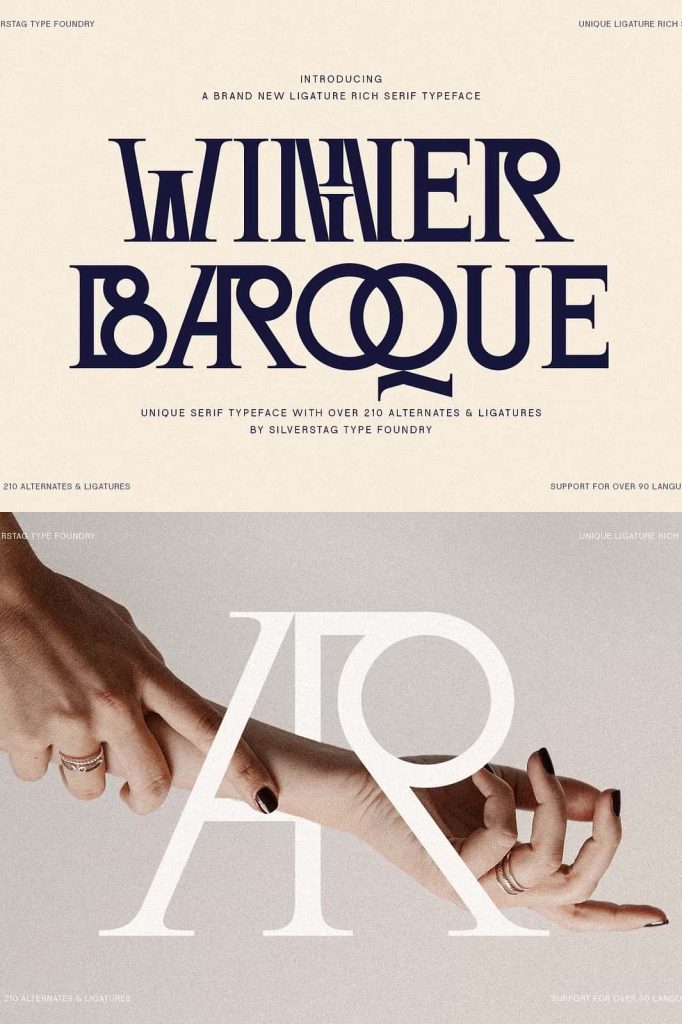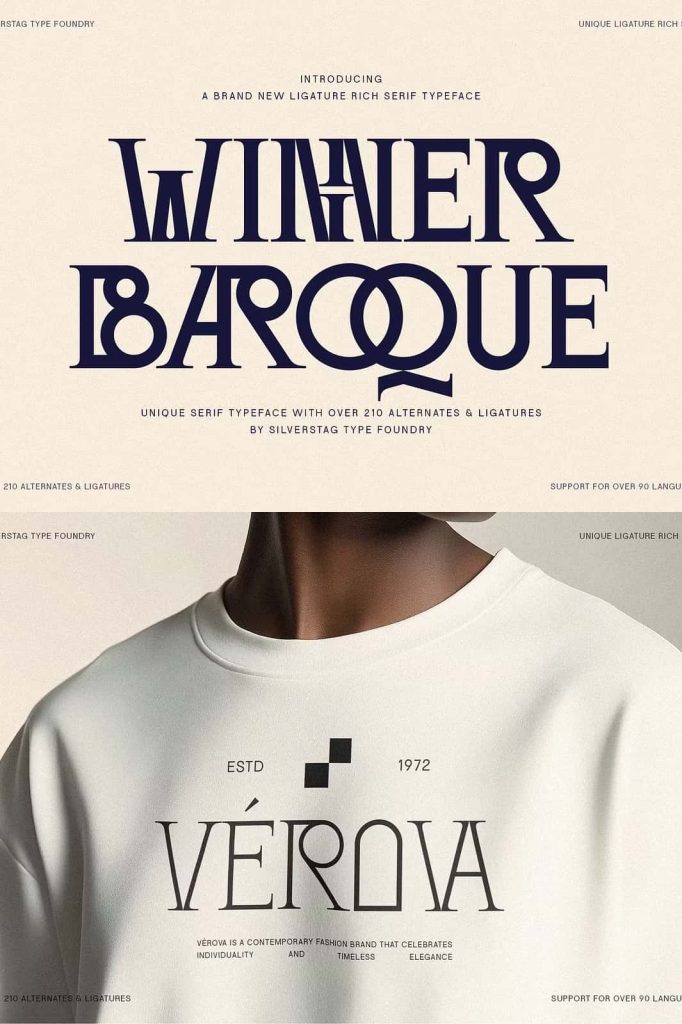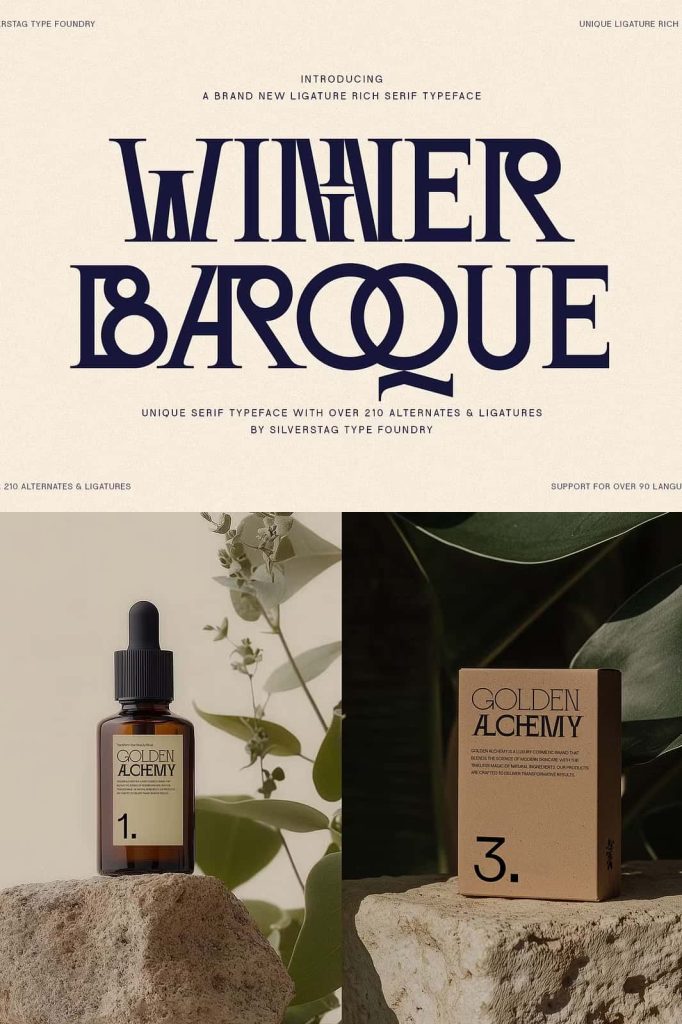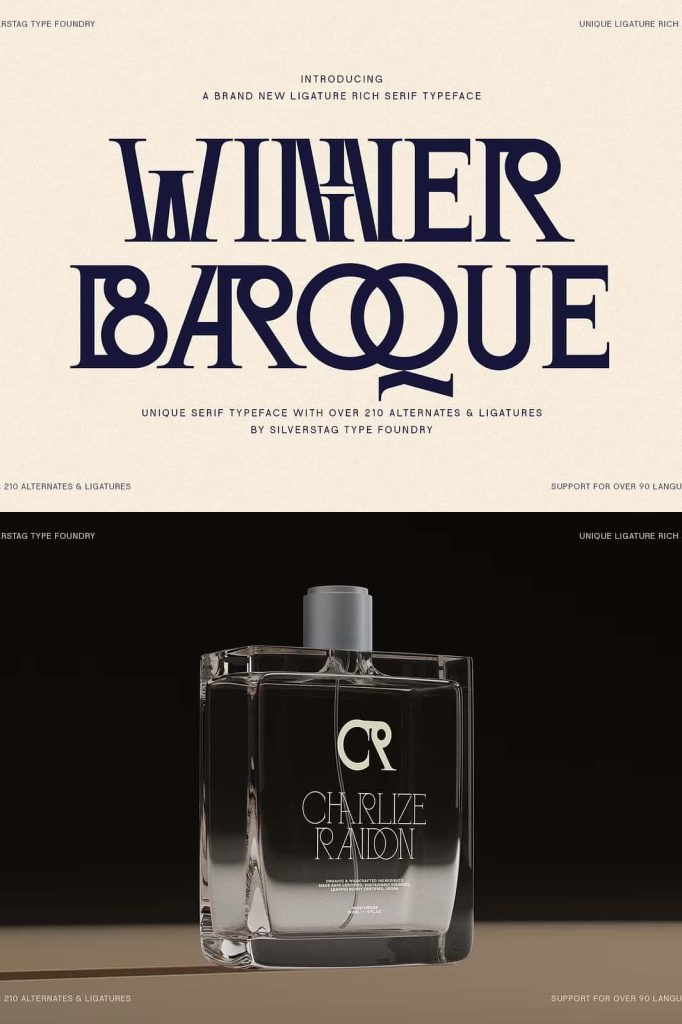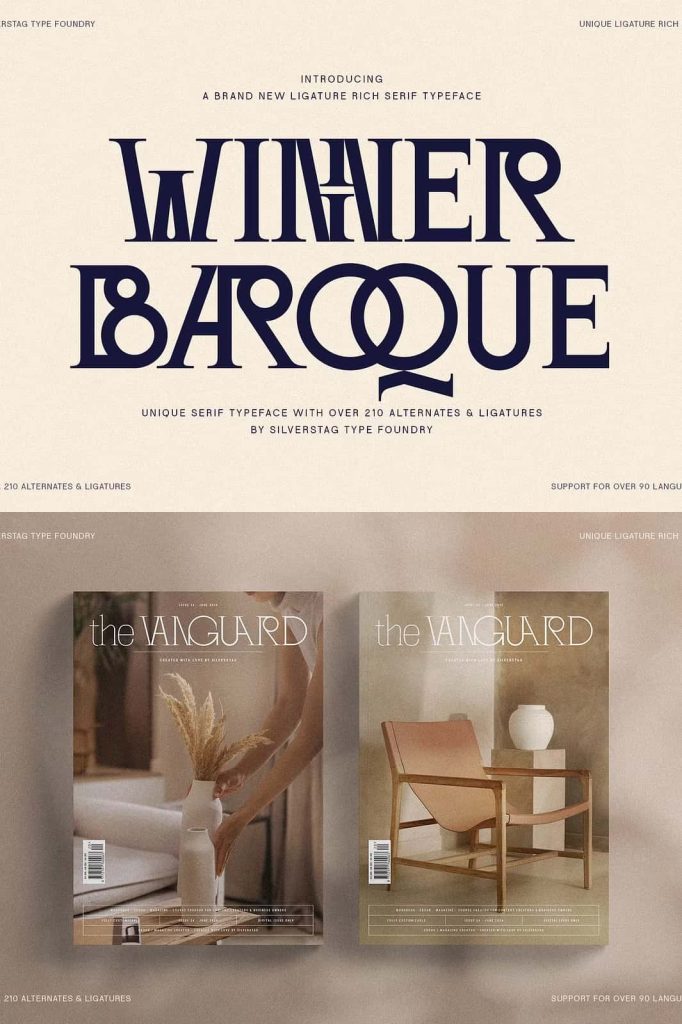
SLTF Winner Baroque – Ligature SerifleastedJanuary 22, 2025Fonts Introducing SLTF Winner Baroque, a sophisticated and versatile serif typeface designed to elevate your creative projects. Download